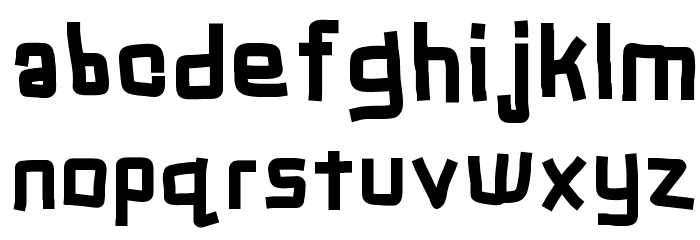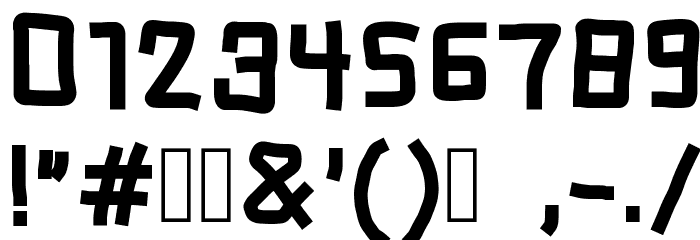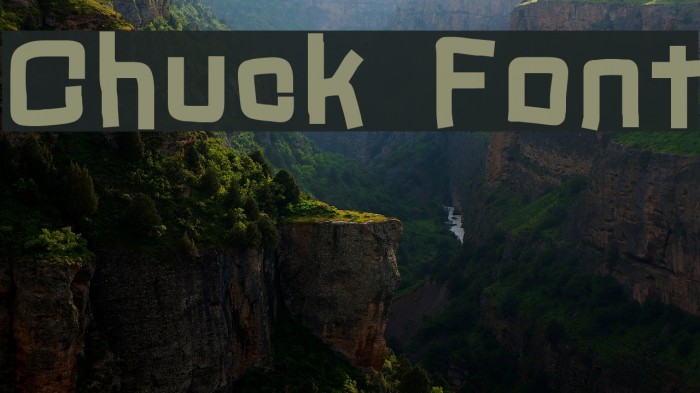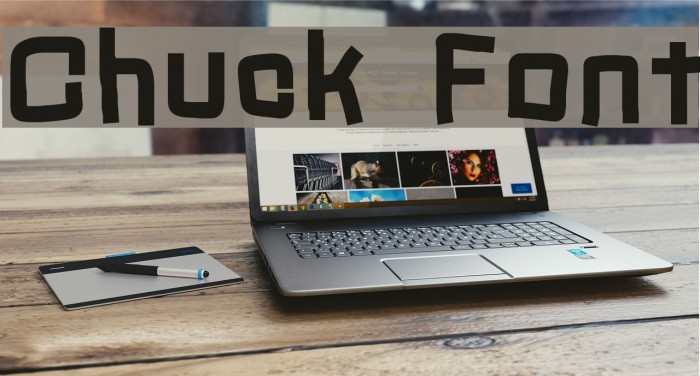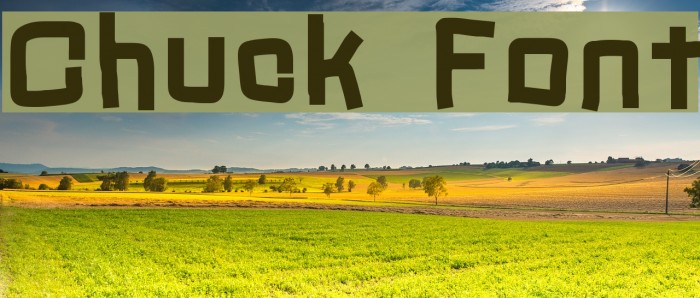
Chuck Font
This font exhibits a playful and bold style with a slightly irregular and hand-drawn appearance. The characters are thick and have a uniform stroke width, giving them a strong presence on the page. The uppercase letters are slightly taller than the lowercase, with rounded edges that soften the overall look. The numerals and special characters maintain the same boldness and quirky style, making them stand out. This font's unique character shapes and boldness make it suitable for eye-catching designs.
A bold, playful font with a hand-drawn, irregular style.
- Proposed Projects: Ideal for children's books, playful branding, posters, and creative projects that require a bold and fun typeface.
- Overall Style: Playful, Quirky